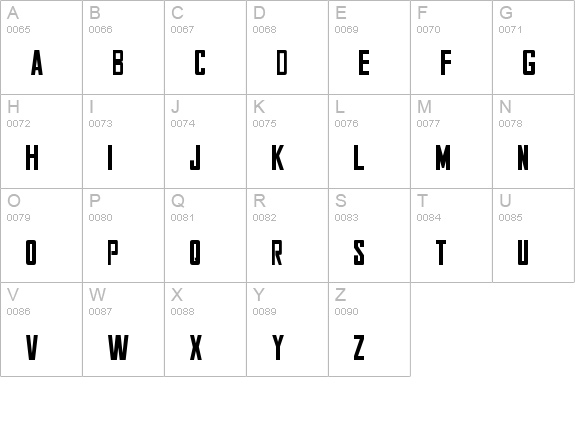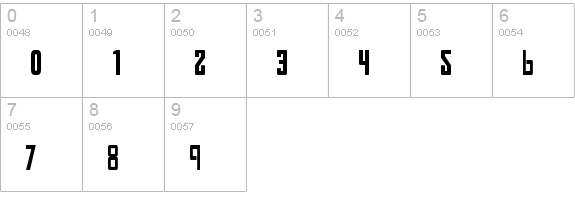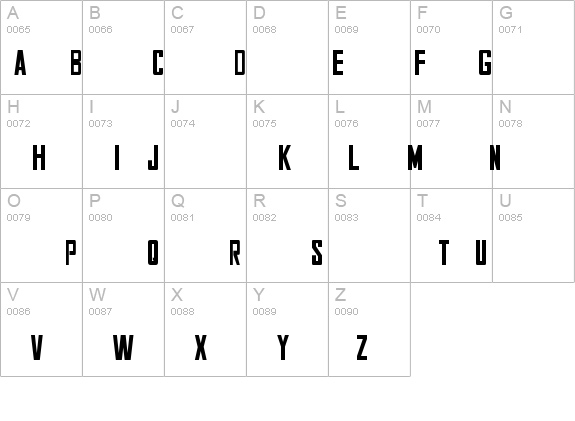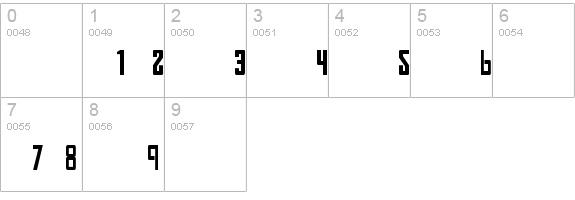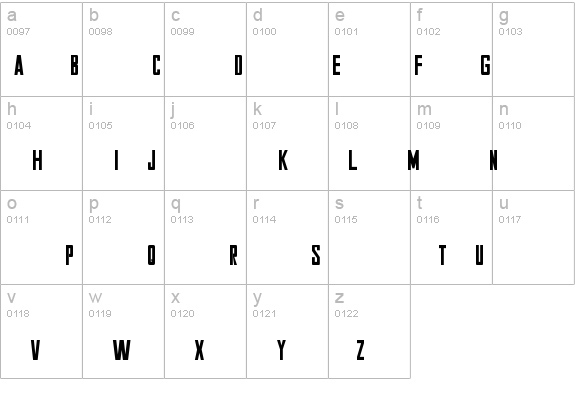
Smallville Solid Font Details
Smallville Solid is a bold and eye-catching font that exudes a sense of strength and reliability. Its solid and sturdy letterforms make a powerful statement, making it perfect for headlines, logos, and any design project that requires a touch of confidence. This versatile typeface combines sharp edges with smooth curves, creating a harmonious balance that catches the eye and commands attention. The letters have a timeless appeal, making Smallville Solid a great choice for both modern and classic designs. One of the best aspects of Smallville Solid is that it is available for free download at FontsMarket.com. This means that anyone can easily access and enjoy this remarkable font without any cost. Whether you are a professional designer or a hobbyist, this font allows you to unleash your creativity without breaking the bank. With its strong presence and bold personality, Smallville Solid is sure to make a lasting impression on any project. Its clean and well-defined shapes ensure legibility, even at smaller sizes, making it suitable for various applications, including print and digital media. Don't miss the opportunity to enhance your designs with Smallville Solid. Download it for free today at FontsMarket.com and let your creativity soar to new heights.